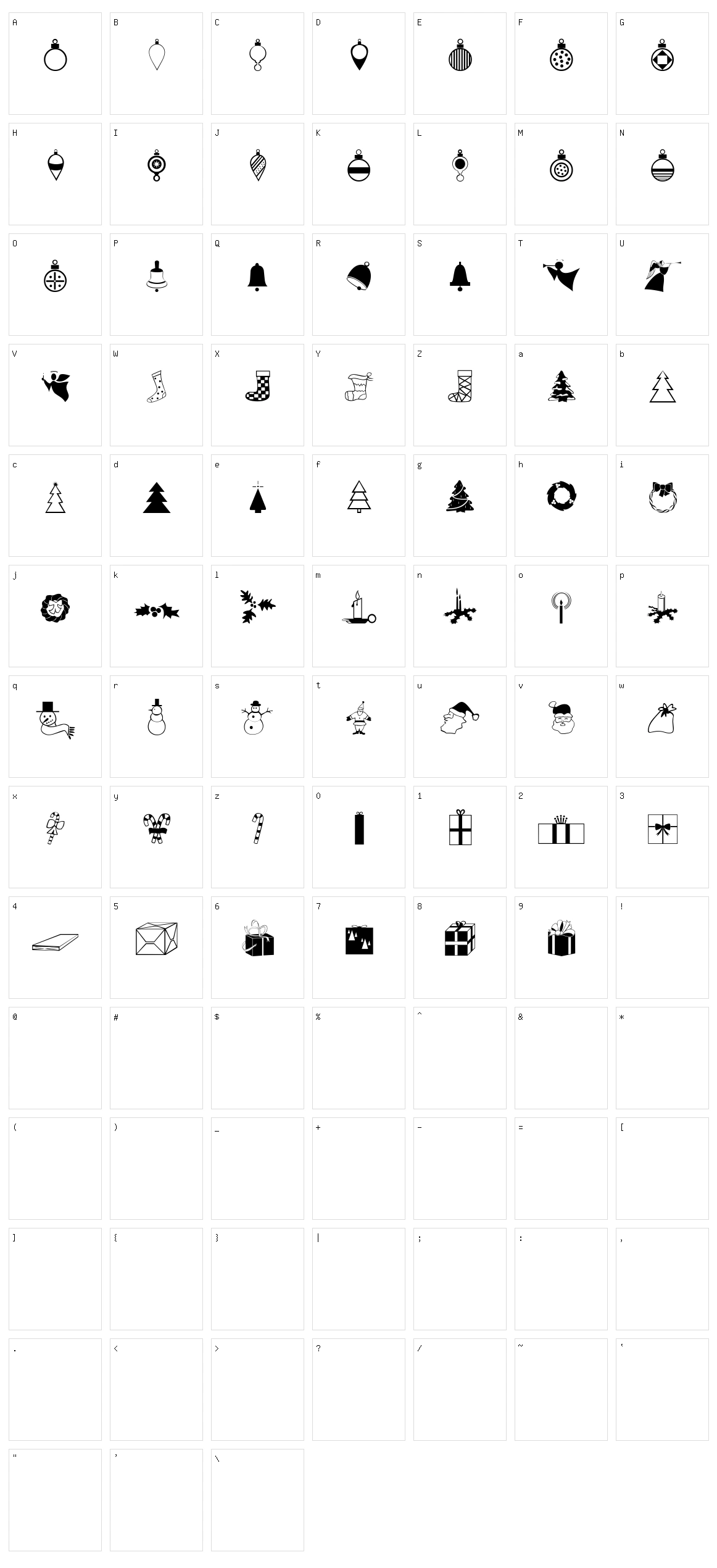
The free font Xmas Dings is carefully designed by Alan Carr, showcasing a thoughtful balance of creativity and usability and falls under the Christmas font style. When you download the ZIP file, it contains only 28.55 KB of font files, making it lightweight and quick to download. Please review the license details below to understand permitted usage and distribution rights. If license information is not available, we recommend using this font for personal projects only or contacting the author directly for commercial usage permissions.